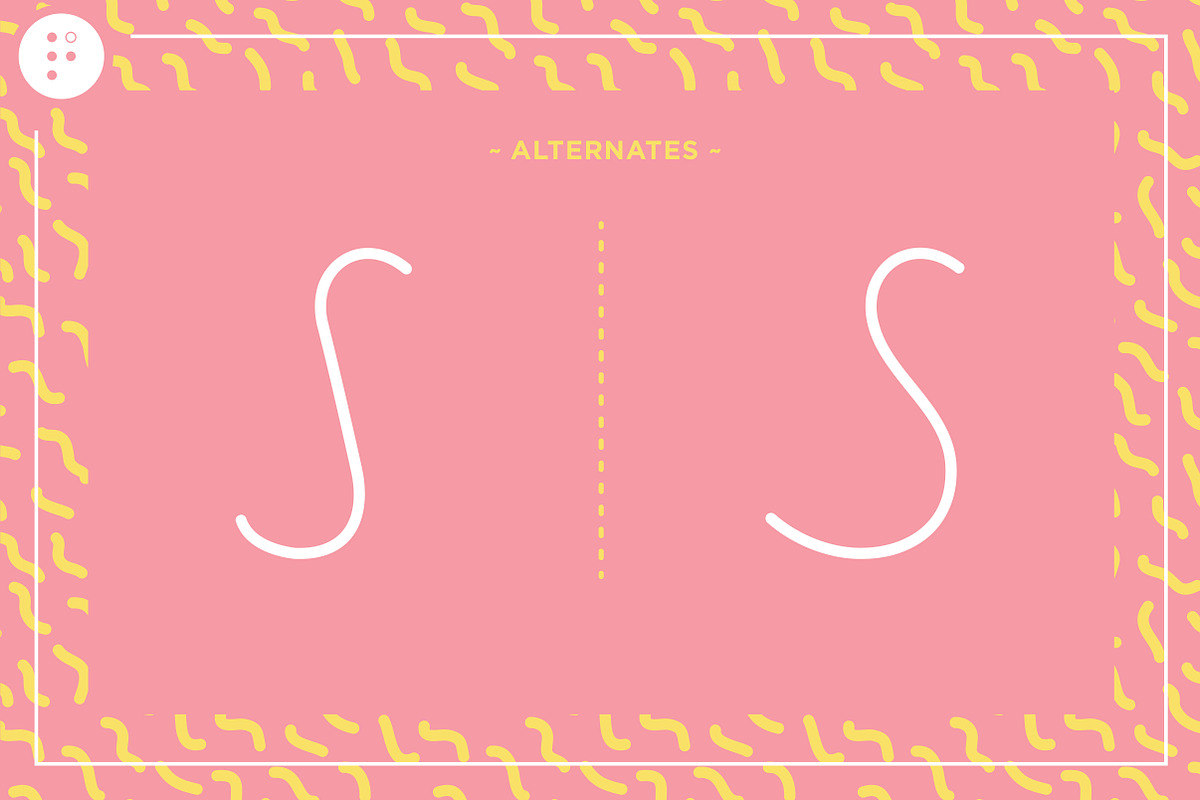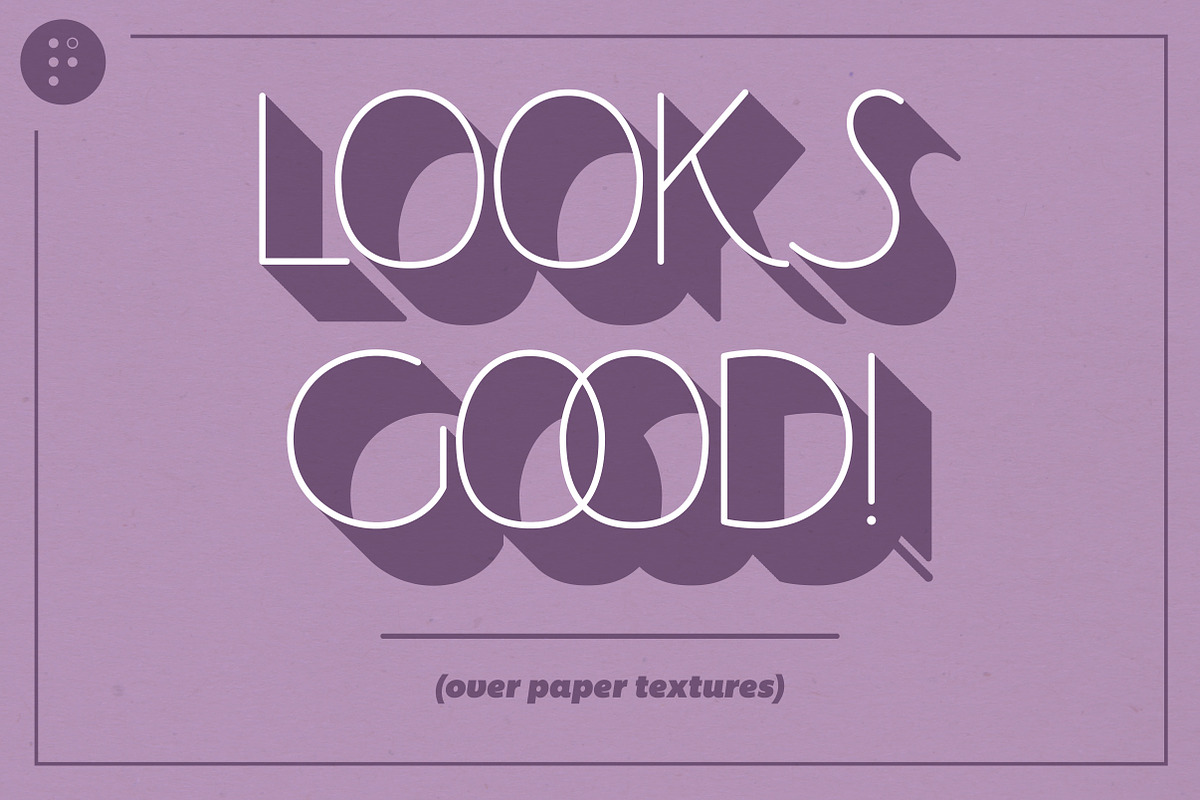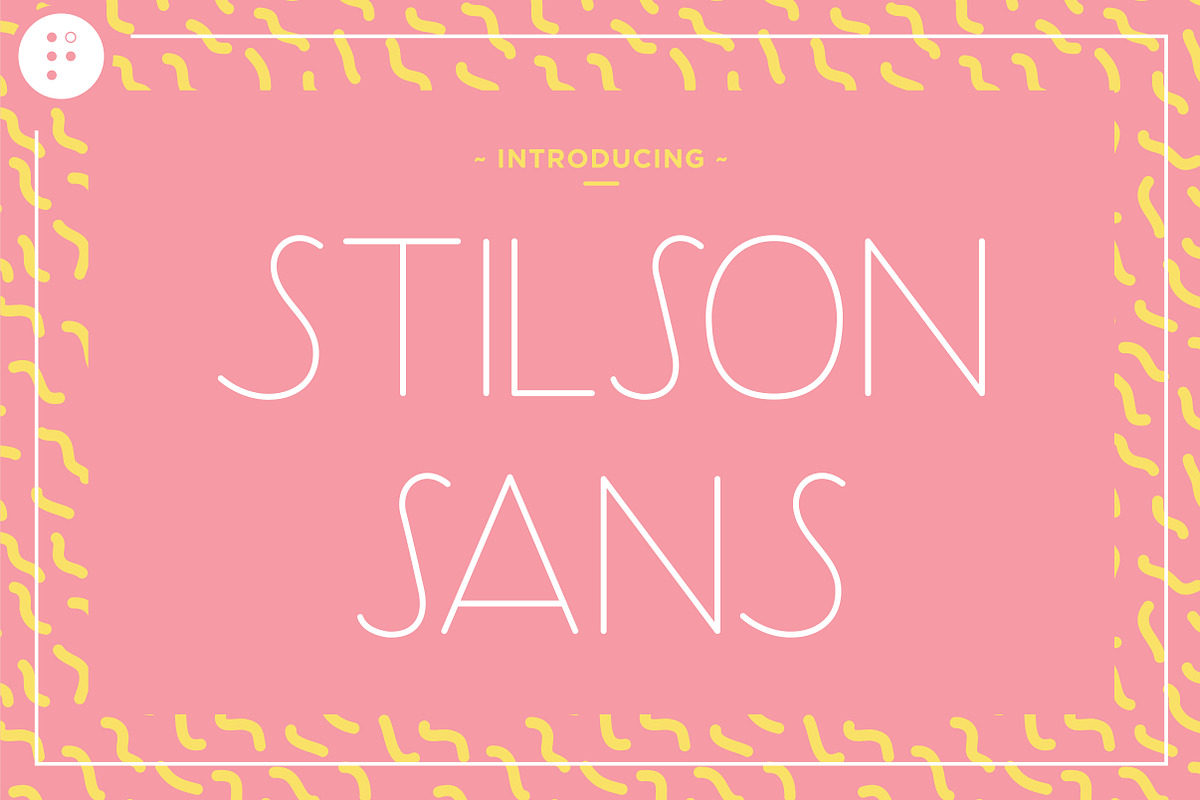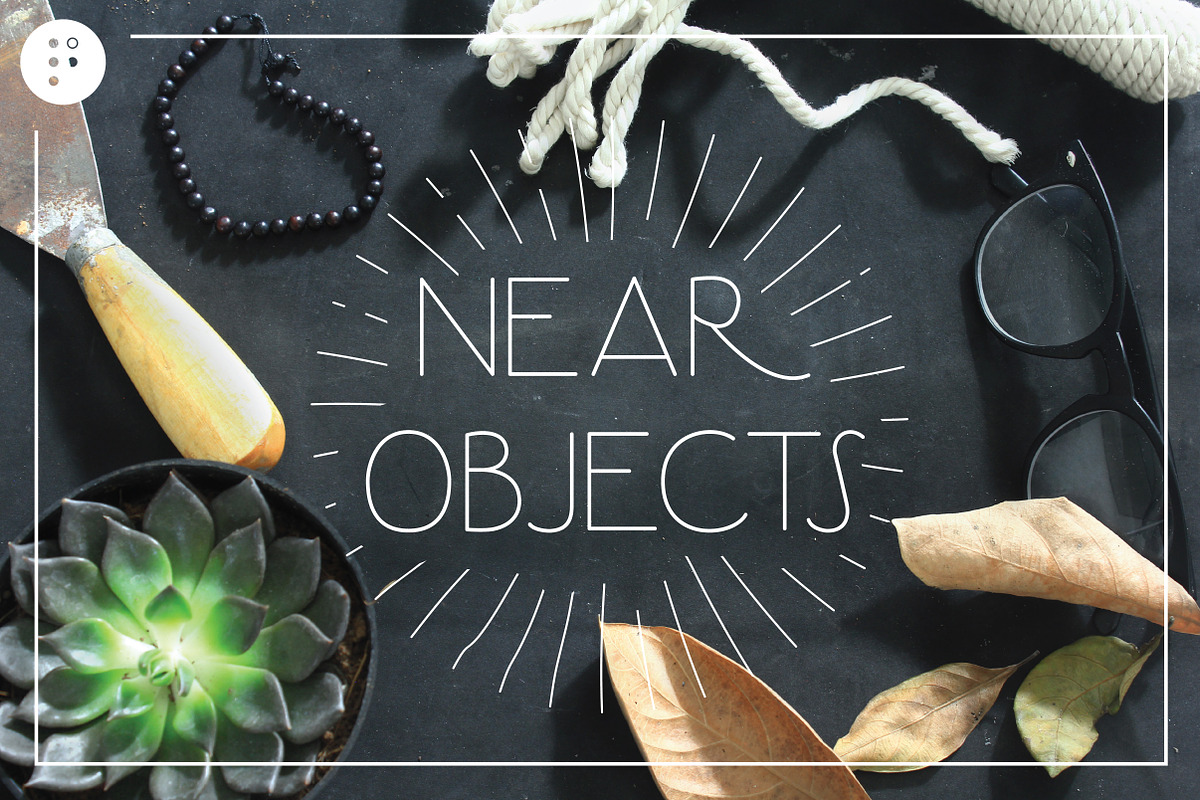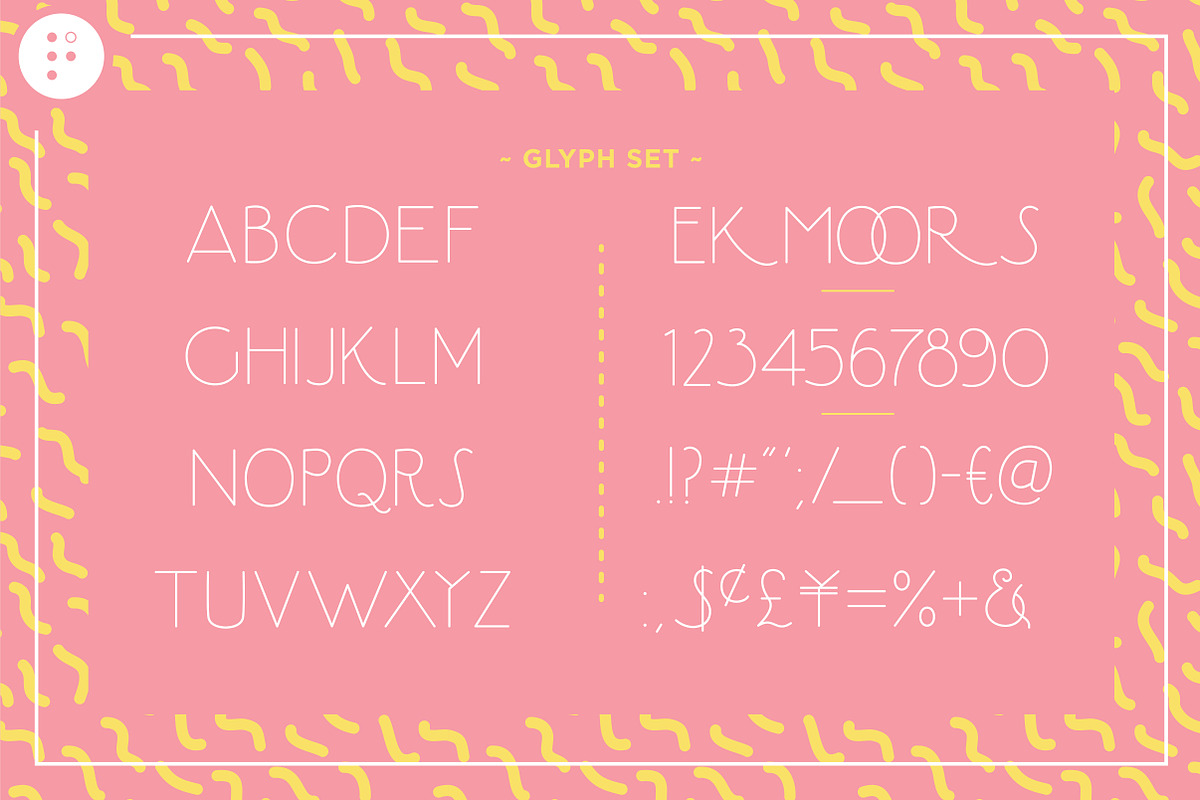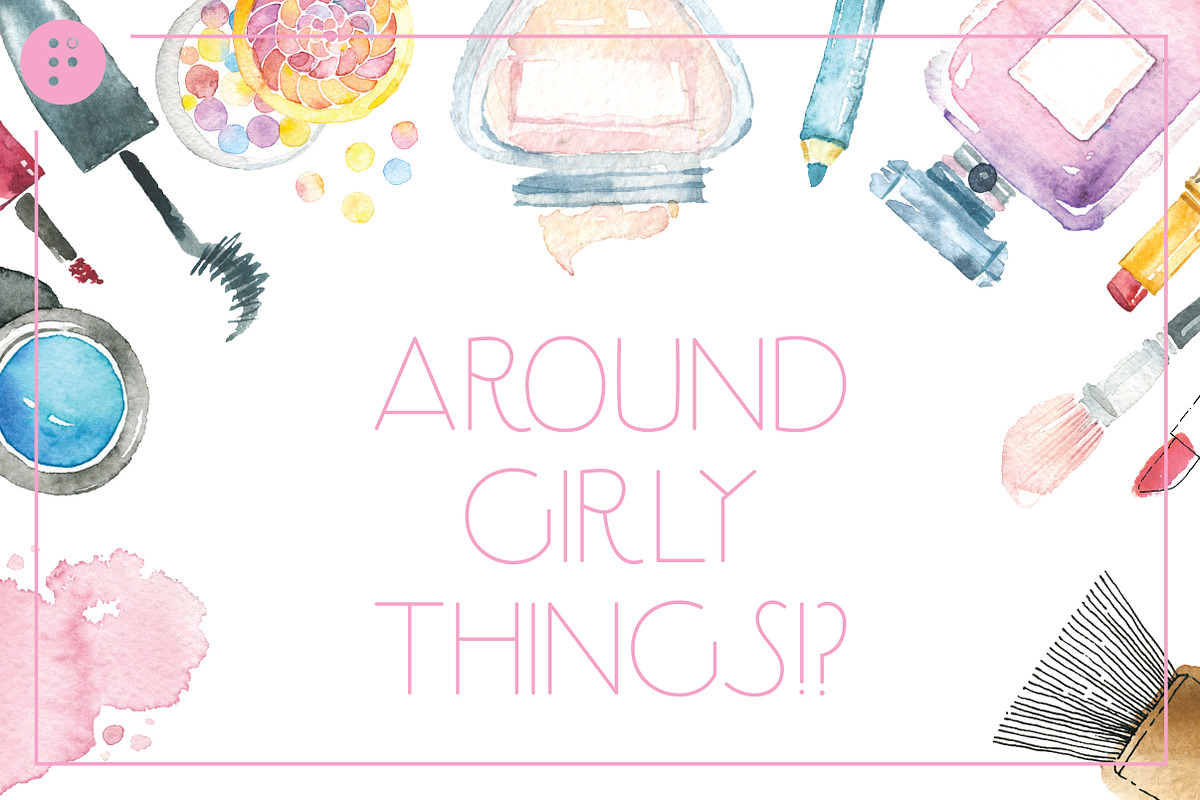
Stilson Sans - Thin Display Face
Inline version of the classic Stilson (coming soon!), Stilson Sans is a high x-height, thin, display face. Includes a few alternates, numeral set, and select extended glyphs (dat ampersand doe). Should look most comfortable around girly things, or in the 80's.